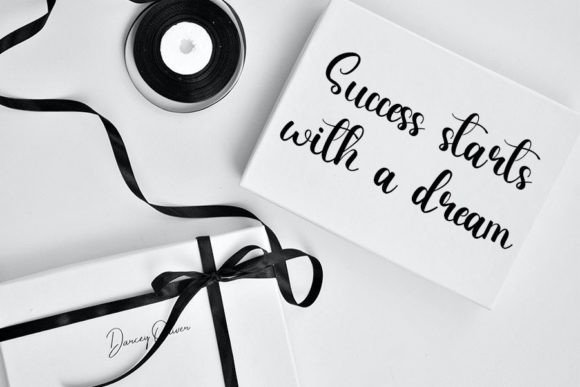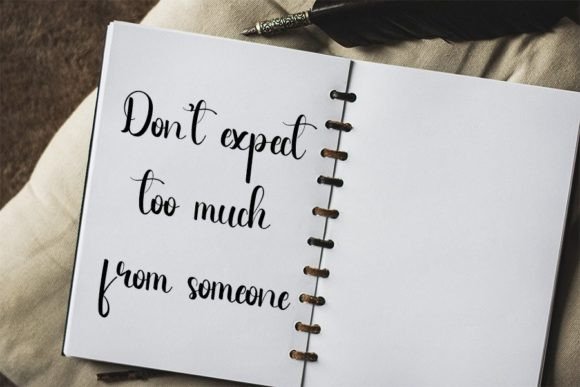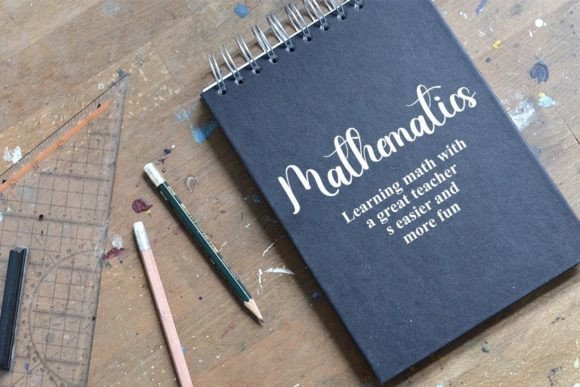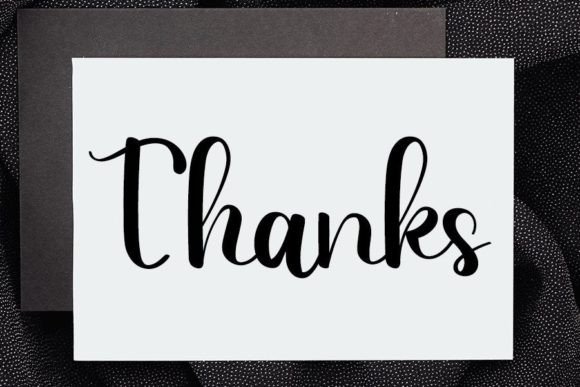
Discover the Elegance of Alright Font: Elevate Your Designs with Timeless Style
Are you on the hunt for a font that adds a touch of elegance and sophistication to your projects? Look no further than the Alright Font, a stunning handwritten typeface that is sure to capture your heart. With its unique blend of classic charm and modern flair, Alright Font is the perfect choice for designers and crafters seeking to create breathtaking designs that stand out from the crowd.
The Beauty of Alright Font
Alright Font is a neat and beautiful handwritten font, carefully crafted to exude an elegant touch that is sure to leave a lasting impression. Its incredibly distinct and timeless style makes it an excellent choice for a wide range of projects, from wedding invitations and branding materials to social media graphics and blog posts.
One of the standout features of Alright Font is its versatility. Whether you’re looking to create a bold statement or a subtle accent, this font adapts seamlessly to any design style or theme. Its elegant curves and flowing lines add a touch of sophistication to any text, making it perfect for designers seeking to elevate their work.
What Makes Alright Font So Special?
So, what sets Alright Font apart from other fonts on the market? Here are just a few reasons why this font has captured the hearts of designers and crafters worldwide:
- Unique and Timeless Style: Alright Font boasts a distinct and timeless style that is sure to make your designs stand out from the crowd.
- Elegant Touch: With its elegant curves and flowing lines, Alright Font adds a touch of sophistication to any text.
- Versatility: This font adapts seamlessly to any design style or theme, making it perfect for a wide range of projects.
- Easy to Read: Despite its elegant and cursive nature, Alright Font is surprisingly easy to read, making it perfect for body text and captions.
How to Use Alright Font in Your Designs
Ready to fall in love with Alright Font and incorporate it into your designs? Here are a few tips to get you started:
- Pair it with Bold Fonts: Combine Alright Font with bold and modern fonts to create a striking contrast that adds visual interest to your designs.
- Use it for Headings and Titles: Alright Font is perfect for headings and titles, where its elegant touch can add a touch of sophistication to your text.
- Add it to Your Branding Materials: Use Alright Font in your branding materials, such as logos, business cards, and letterheads, to create a cohesive and elegant visual identity.
Whether you’re a seasoned designer or a crafty DIY enthusiast, Alright Font is an excellent addition to your design toolkit. Here are a few tips to help you get the most out of this beautiful font:
- Experiment with Colors: Alright Font looks stunning in a range of colors, from classic black and white to bold and bright hues.
- Play with Textures: Add texture to your text by combining Alright Font with subtle patterns and backgrounds.
- Don’t Be Afraid to Mix and Match: Combine Alright Font with other fonts and design elements to create a unique and eye-catching design.
In conclusion, Alright Font is a stunning handwritten typeface that is sure to elevate your designs to new heights. With its elegant touch, unique style, and versatility, this font is perfect for designers and crafters seeking to create breathtaking designs that stand out from the crowd. So why wait? Fall in love with Alright Font today and discover a world of creative possibilities!